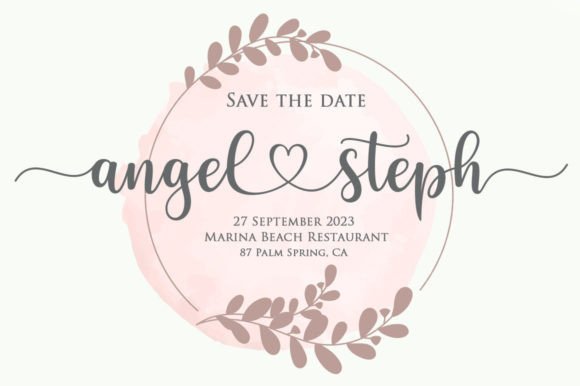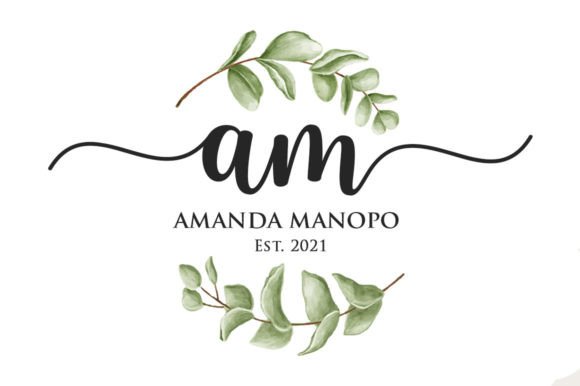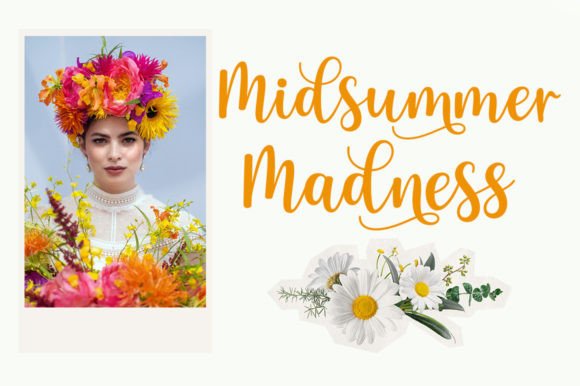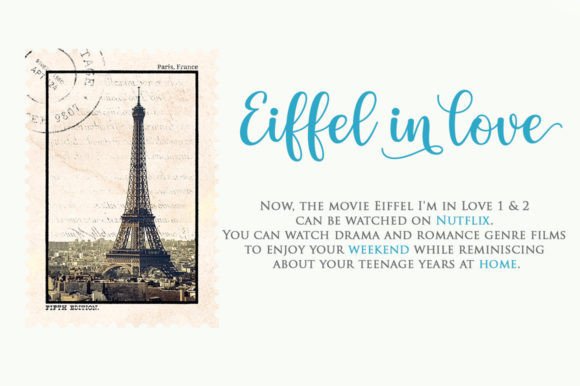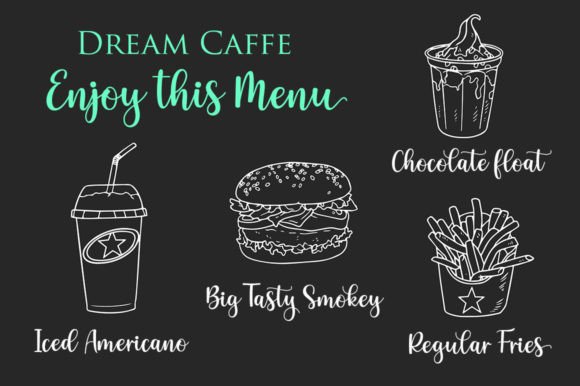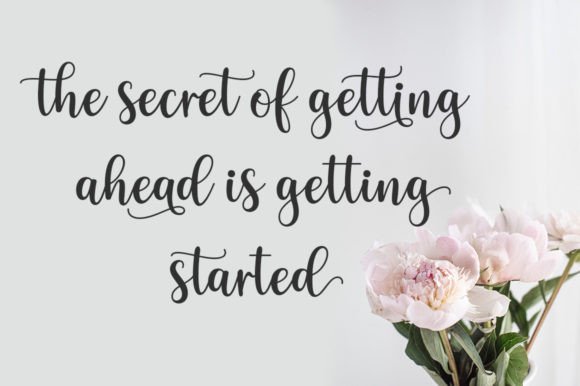
The Elusive Perfect Font: My Encounter with Aishya
I’ll never forget the time I was working on a wedding invitation project, and my client asked for a font that was “elegant, modern, and classy.” I scoured the internet, tried out dozens of fonts, but nothing seemed to fit the bill. That was until I stumbled upon Aishya, a beautiful and refined script font that has since become one of my go-to choices for a wide range of design projects.
Aishya: A Beautiful and Refined Script Font
Aishya is a stunning script font that exudes elegance and sophistication. Its classy, modern look makes it perfect for logos, branding, invitations, stationery, wedding designs, social media posts, and much more! With its refined lines and beautiful curves, Aishya is sure to elevate any design project.
My Honest Review of Aishya
- ✨ Elegant and refined design that’s perfect for high-end projects
- ✅ Wide range of OpenType features, including glyphs and stylistic alternates
- 💻 Highly versatile and can be used for a variety of design projects
- 👍 Excellent for creating beautiful wedding designs, invitations, and stationery
- 🤔 Some users may find the font a bit too ornate for certain projects
- ⚠️ Limited availability of certain characters and glyphs in some applications
The Story Behind Aishya
Aishya was designed by a team of typographers who wanted to create a font that was both elegant and modern. Inspired by traditional calligraphy, Aishya features beautiful lines, curves, and swashes that make it perfect for a wide range of design projects. The font has since become popular among designers and crafters, who appreciate its versatility and beauty.
| Font Name | Aishya Font |
| Author | Natural Ink |
Q: What is Aishya font?
A: Aishya is a beautiful and refined script font that features elegant lines, curves, and swashes. It’s perfect for a wide range of design projects, including logos, branding, invitations, stationery, wedding designs, and social media posts.